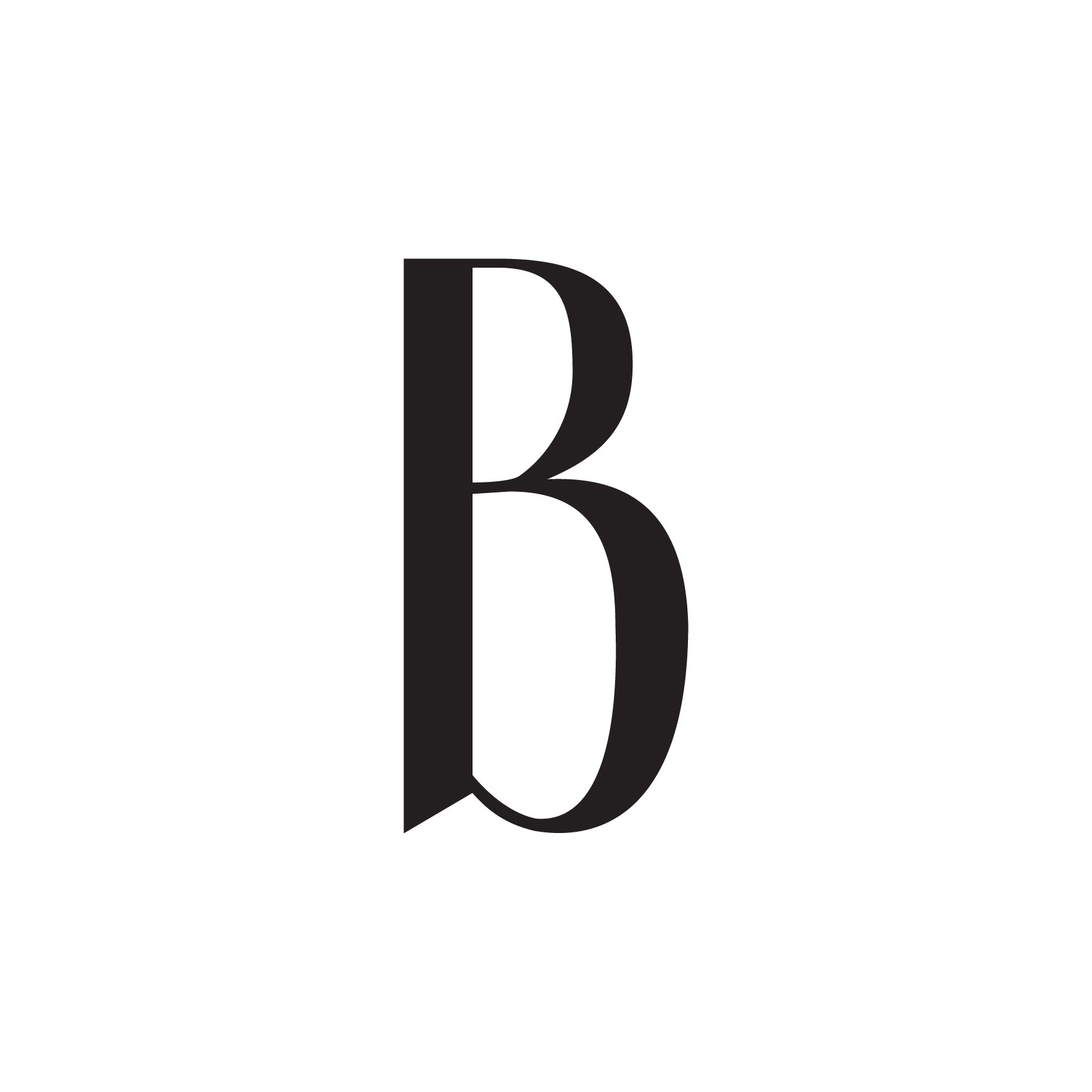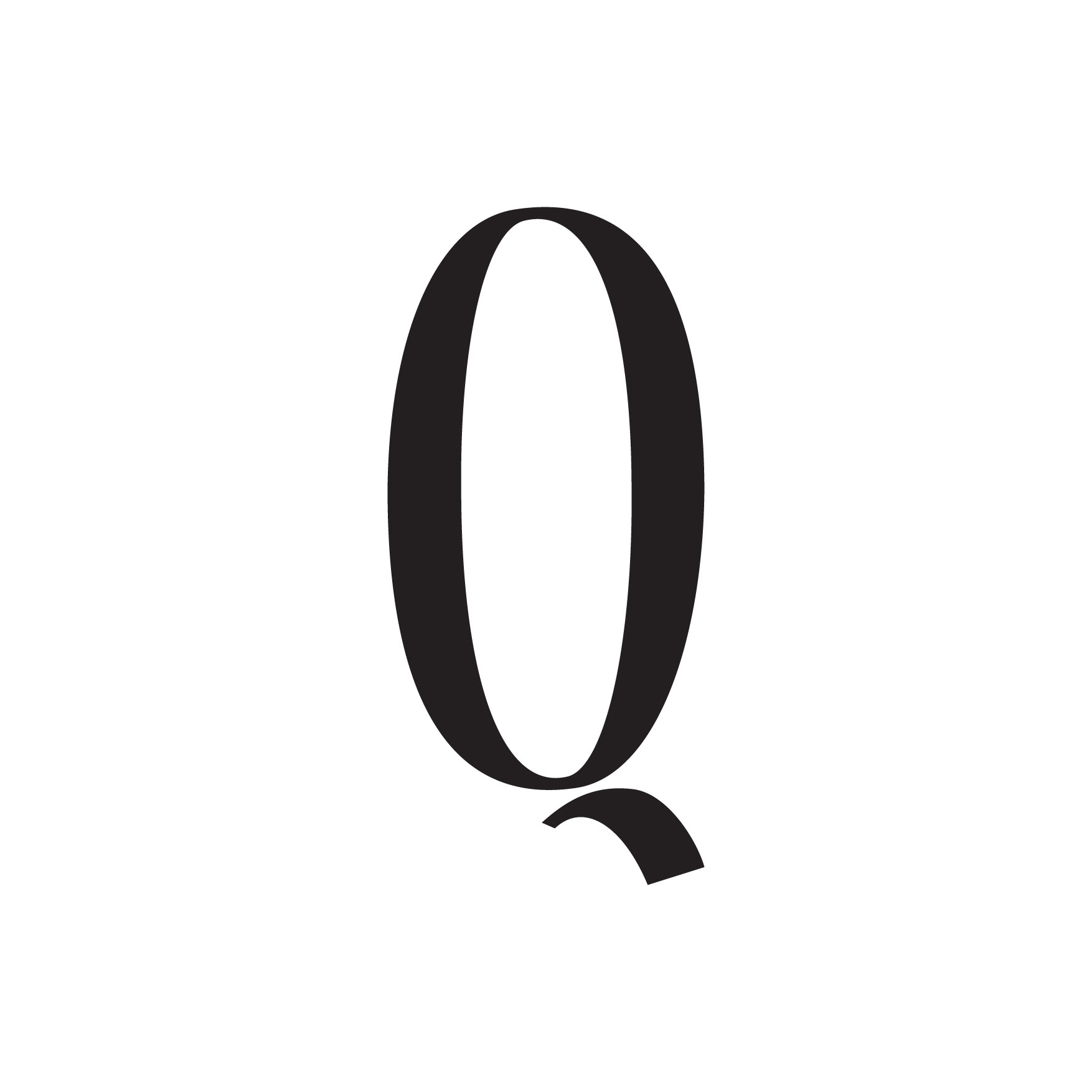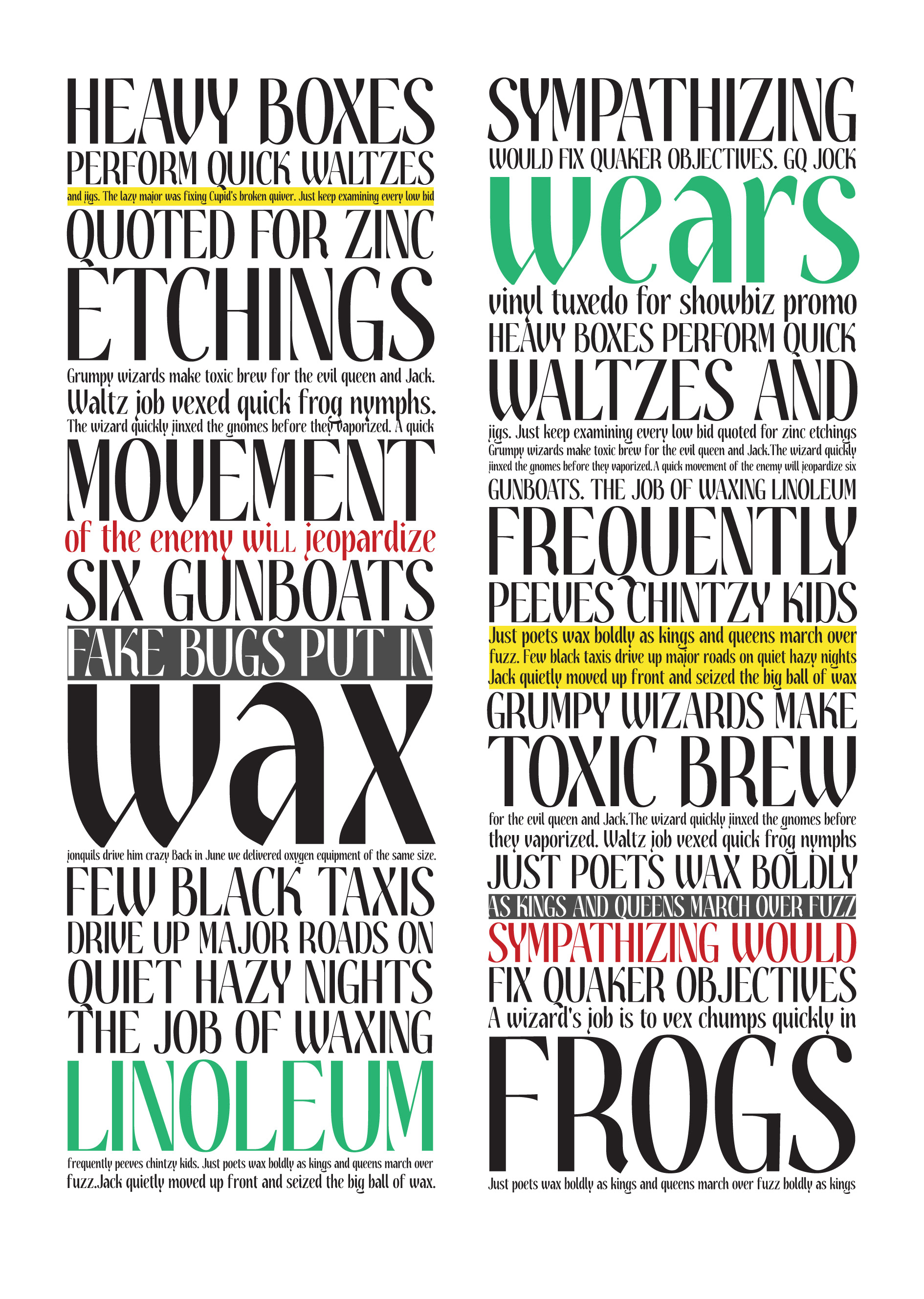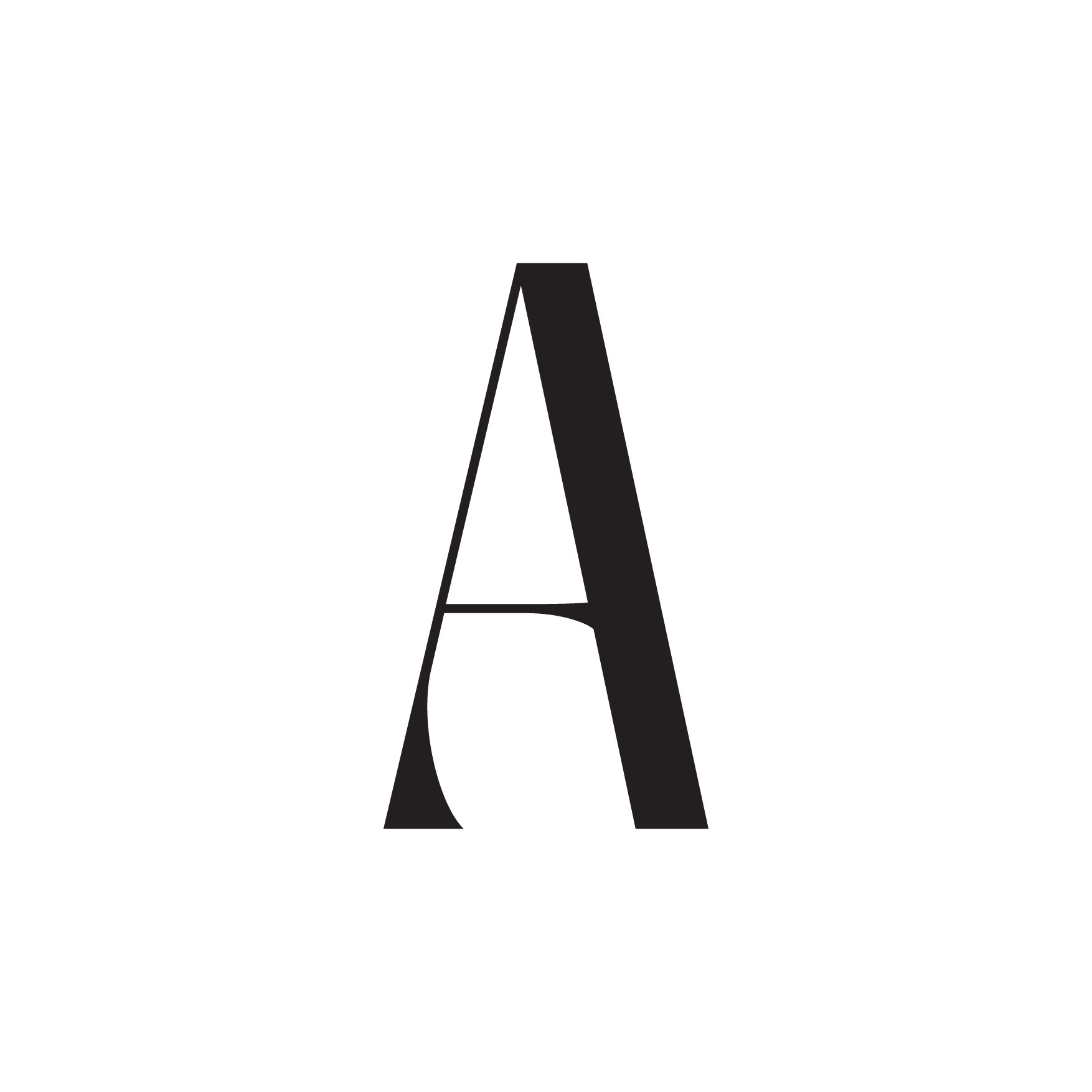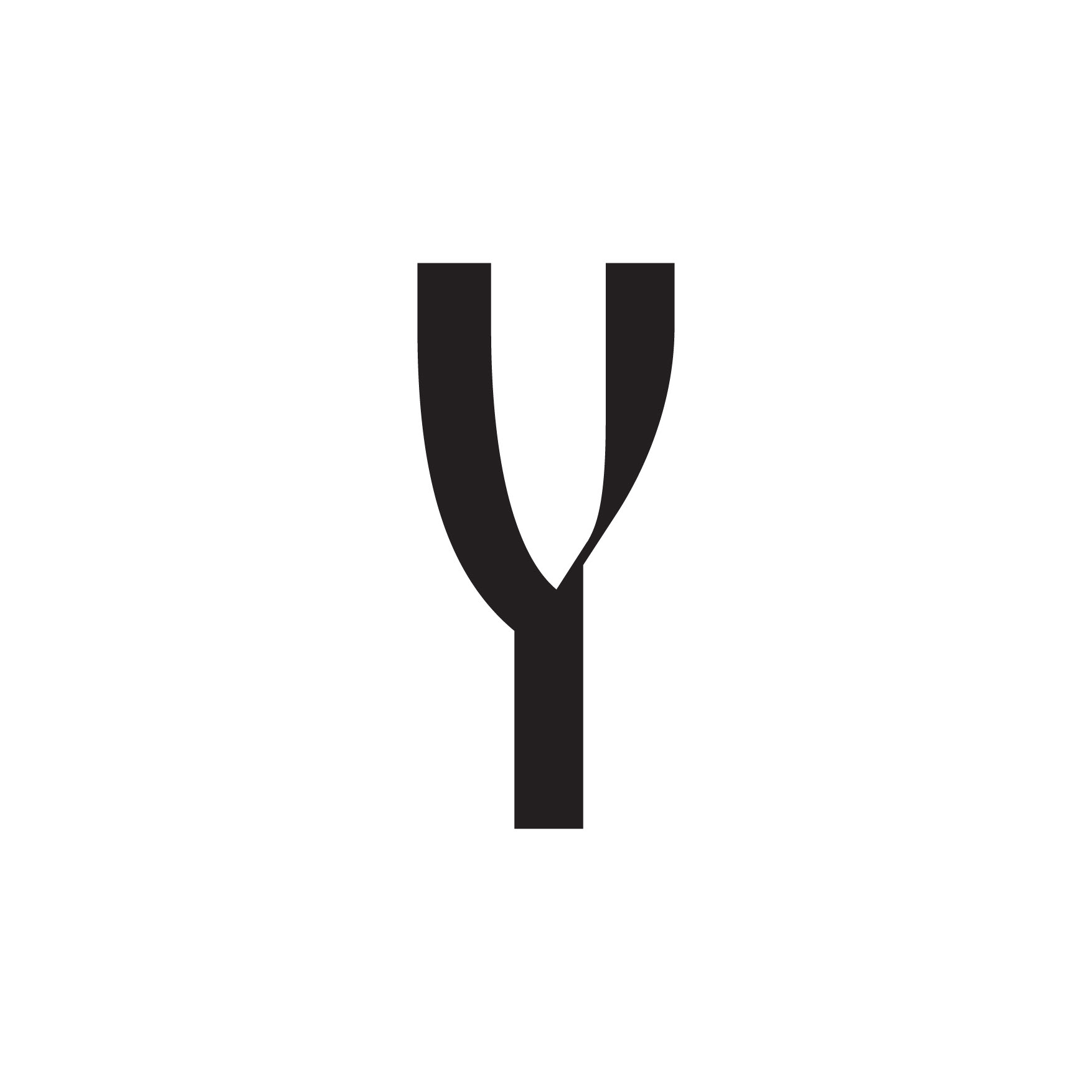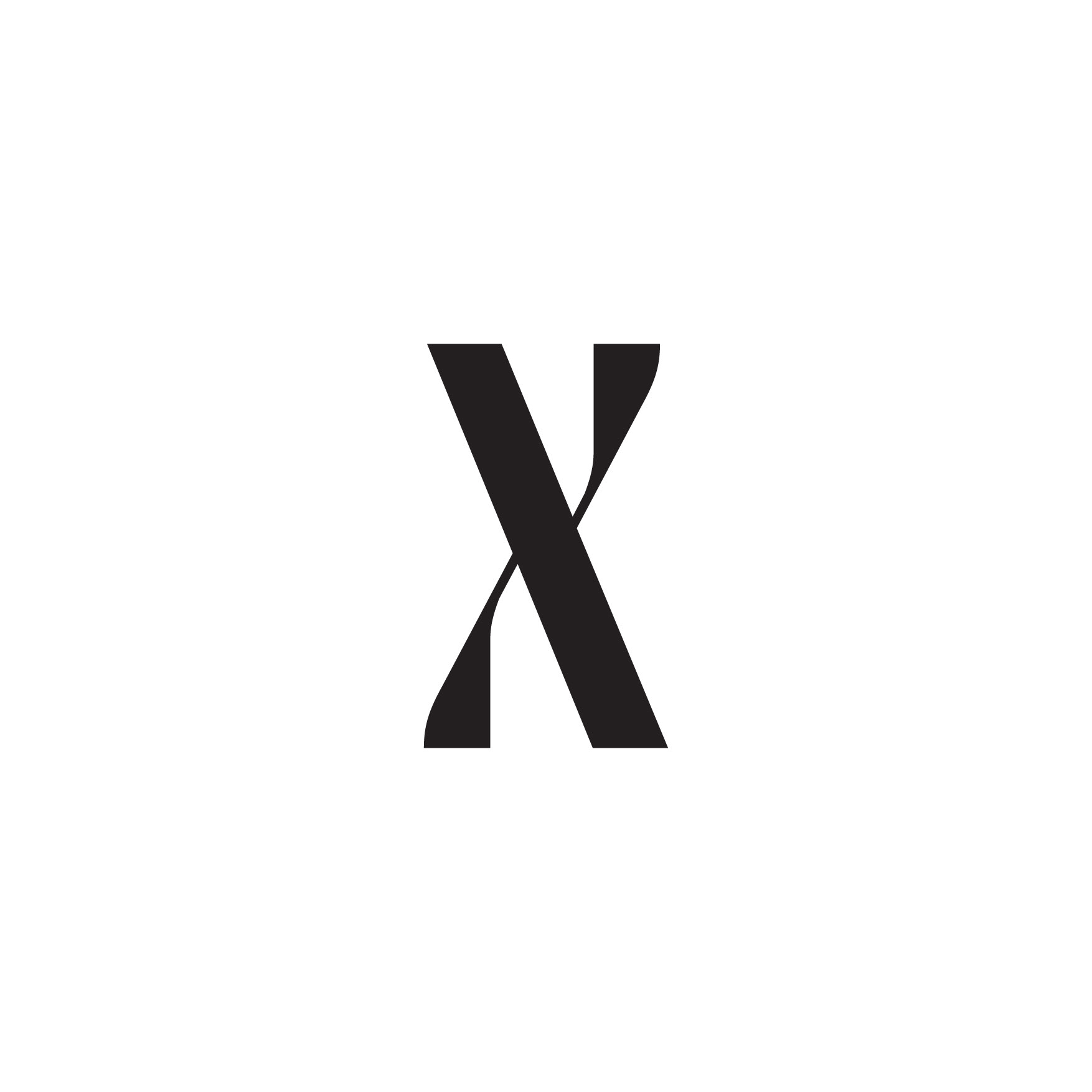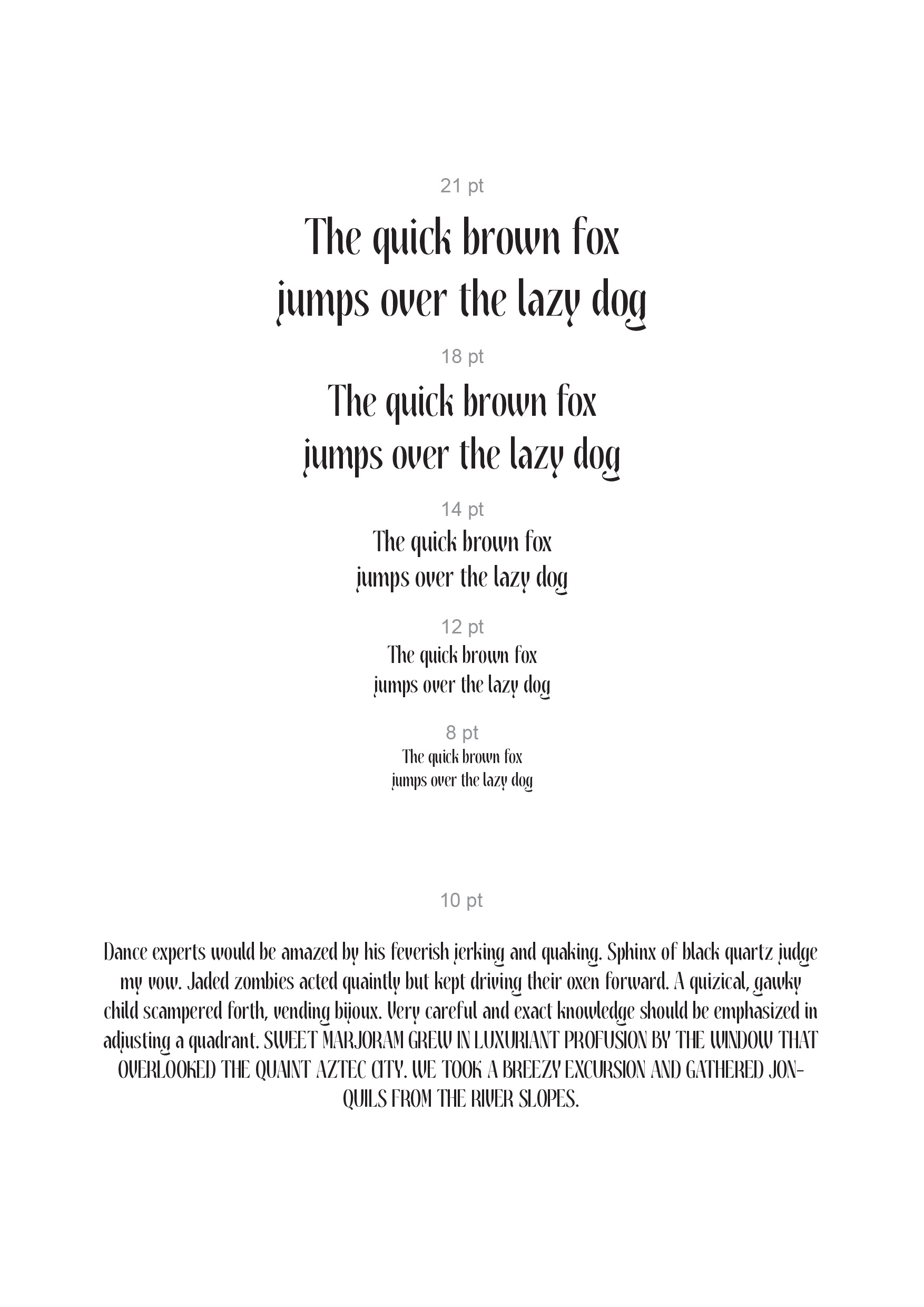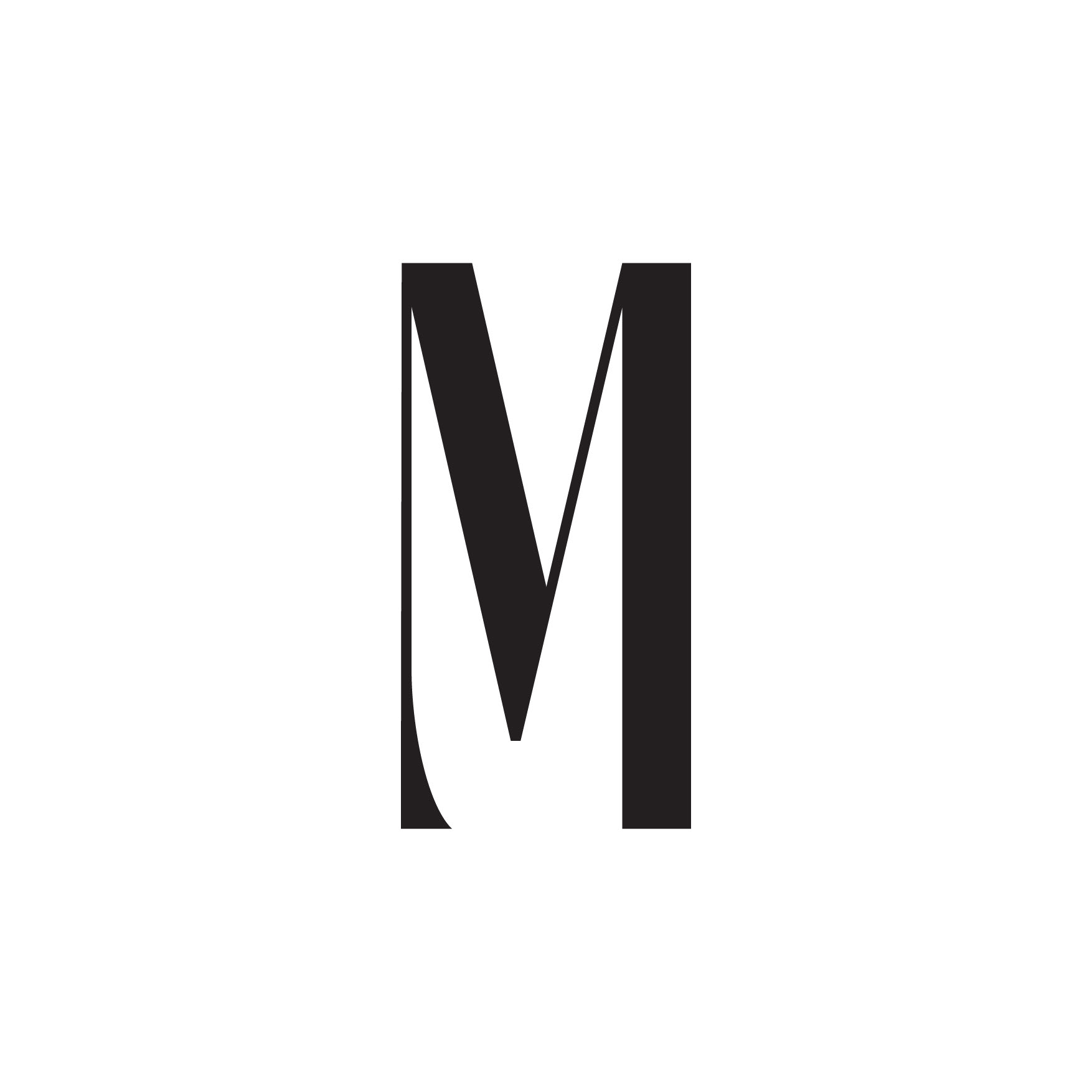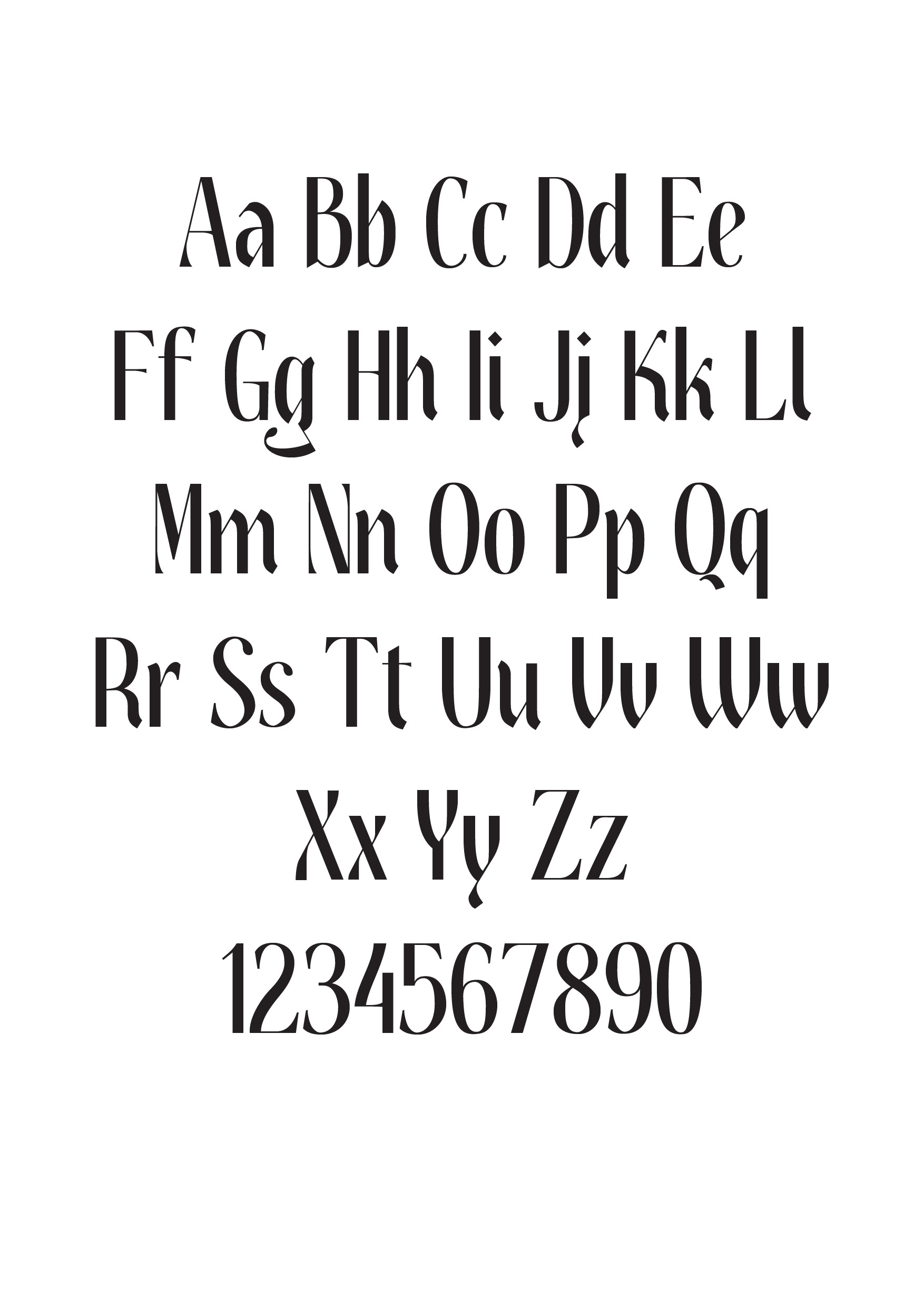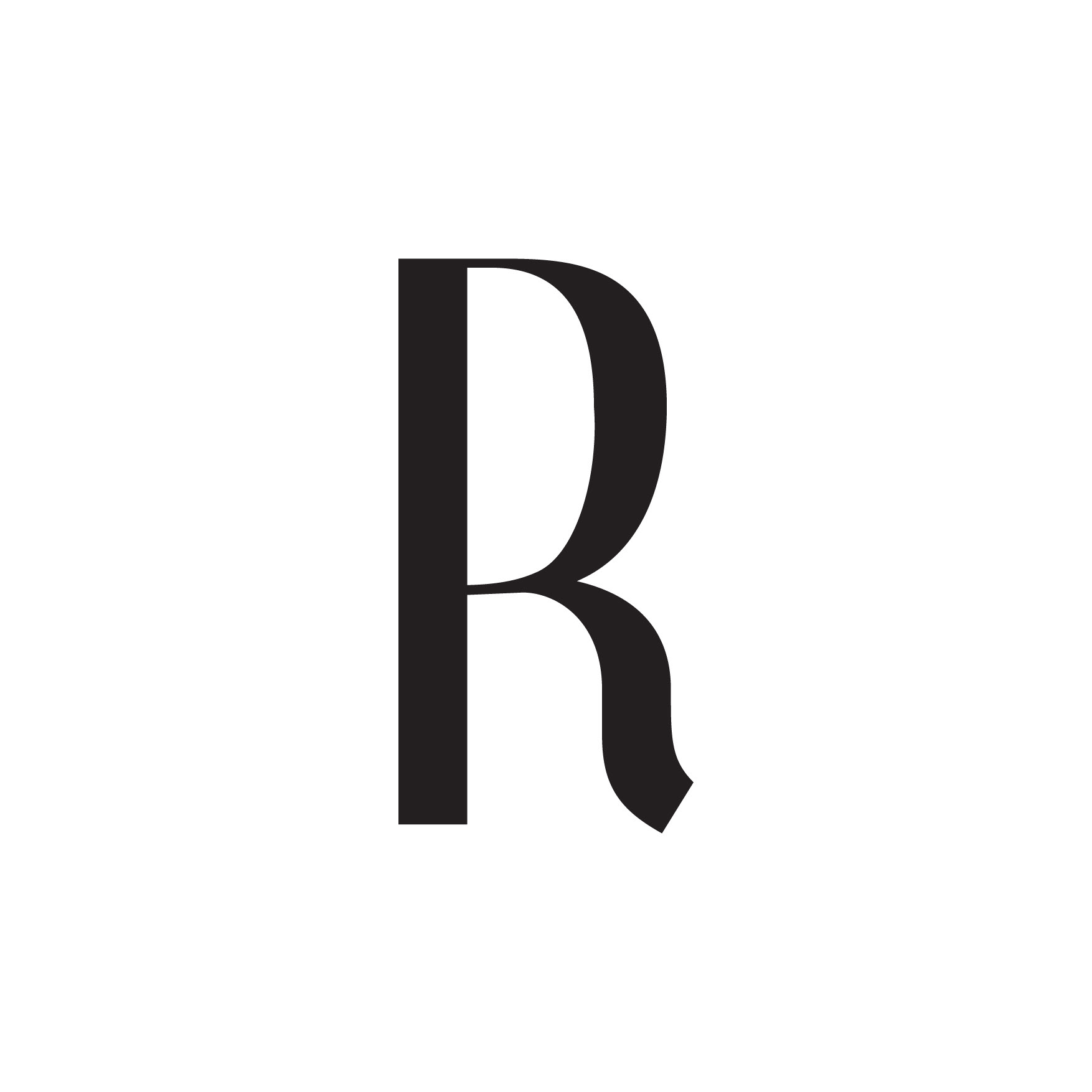
Hambia Font
This font is meant to be used for short texts where strong contrast is wanted. It is some kind of old school typeface with new style. It has calligraphy look because of high contrast.